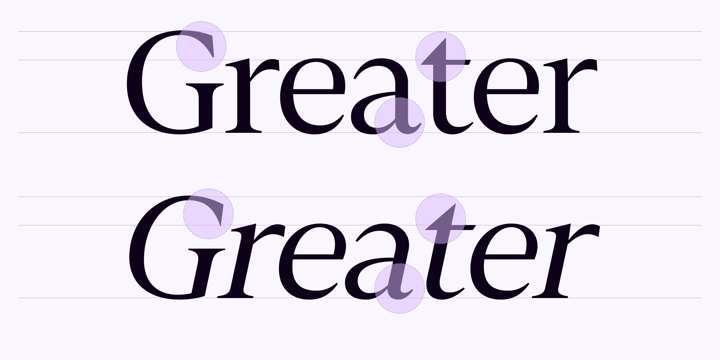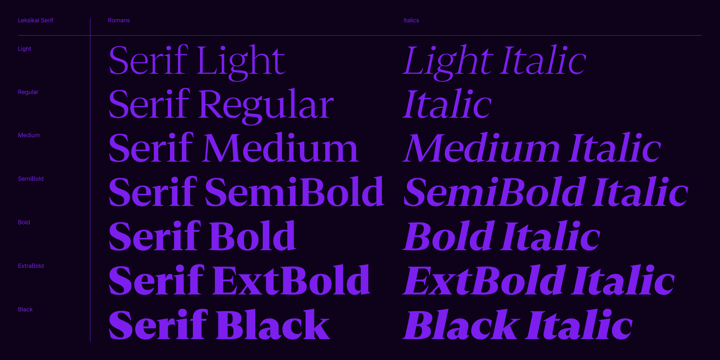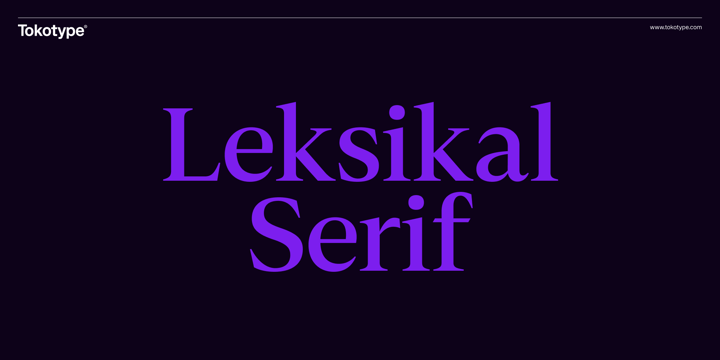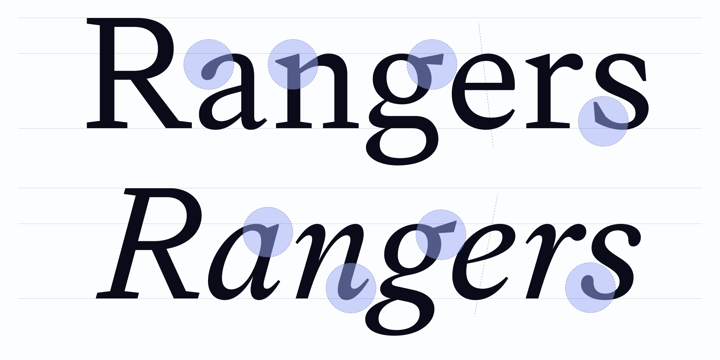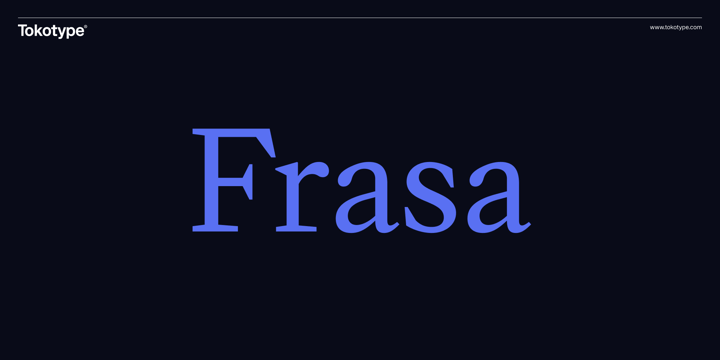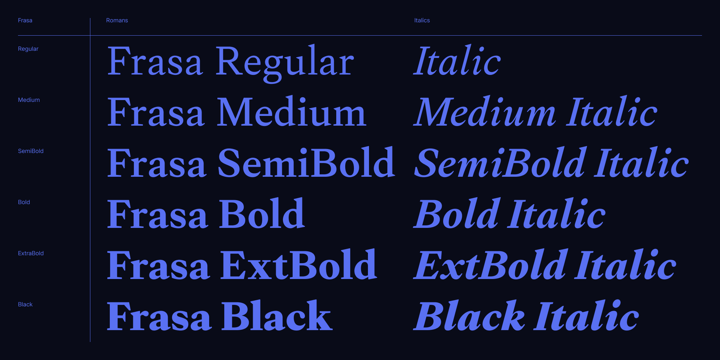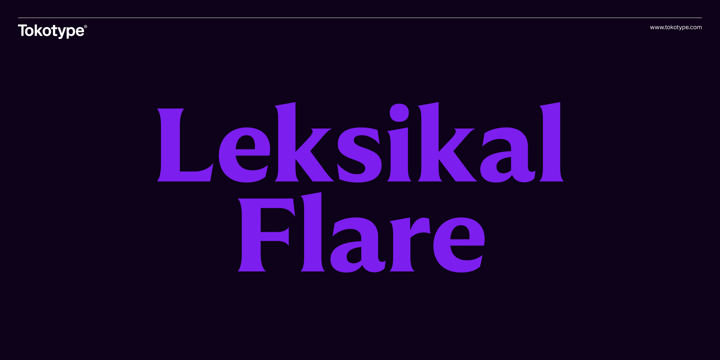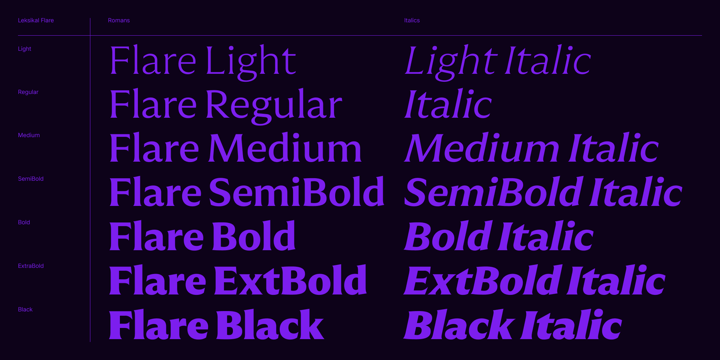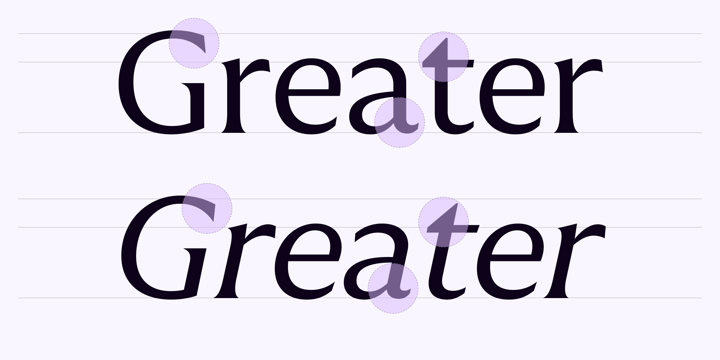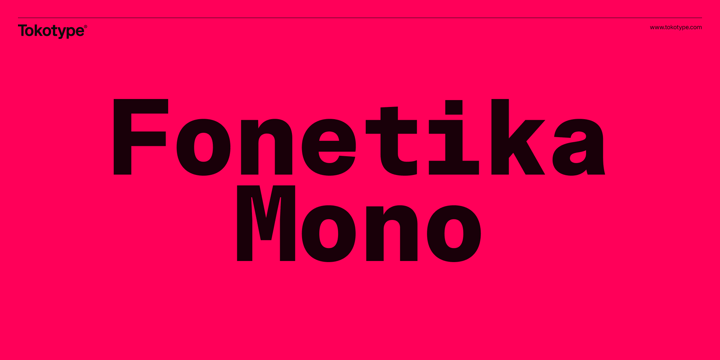
Gumpita Rahayu
Gumpita Rahayu is one of the graphic designers who has transformed himself
to concentrate on digital type design, his notion and discipline about
typography lead him to be the one noticeable talent in the type design
scene in Indonesia.
The in depth-level detail of Gumpita's design has been enriched by the
integration of functionality and artistic, including a diverse selection of
his design style. His presence and role alter himself as a distinct
Indonesian designer artist, exemplified by his work and his contribution to
the Indonesian design industry and its education, highlighted under
Tokotype flags